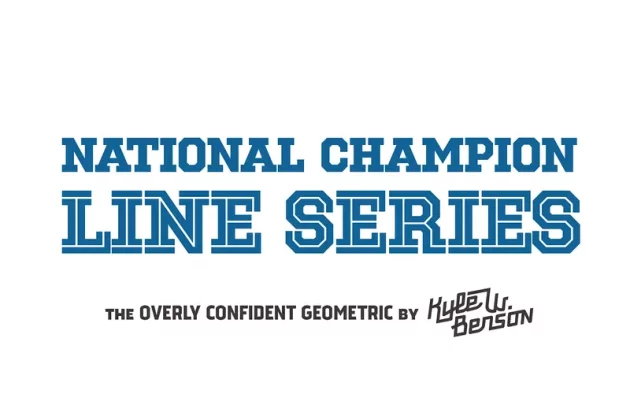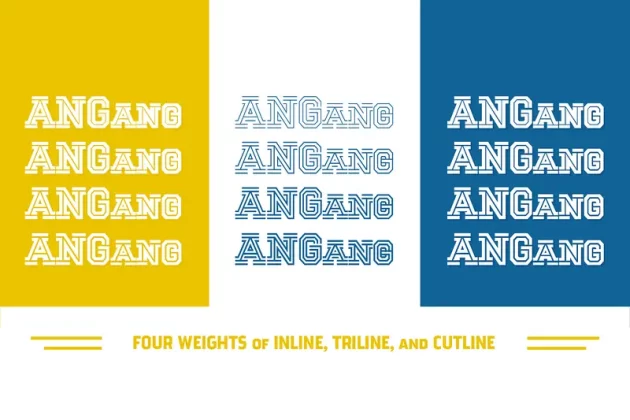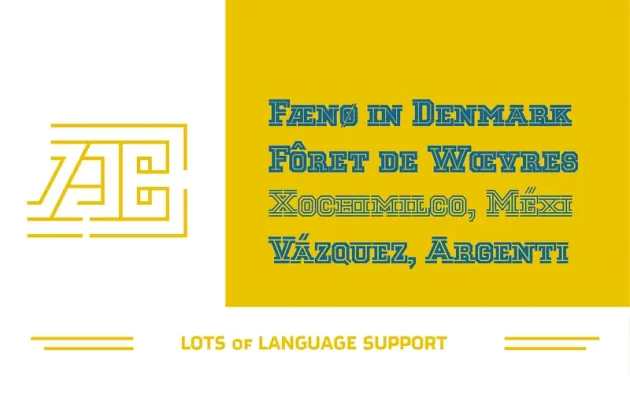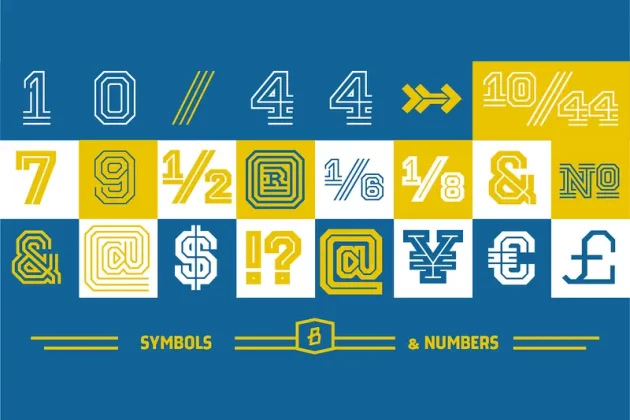
National Champion – Line Series Font
National Champion is the overly confident geometric slab that comes in four weights (https://creativemarket.com/kylewaynebenson/20765-National-Champion), and now has an added twelve styles! With four weights of each type (Cutline, Inline, and Triline), there’s enough variety to cover any display project you’ve got going on.
He is best suited for those looking for a well colored, balanced, and spaced font in the College genre. He’s got a 3/4 cap lowercase, lots of language options, opentype fractions, and meticulous hinting for web use.